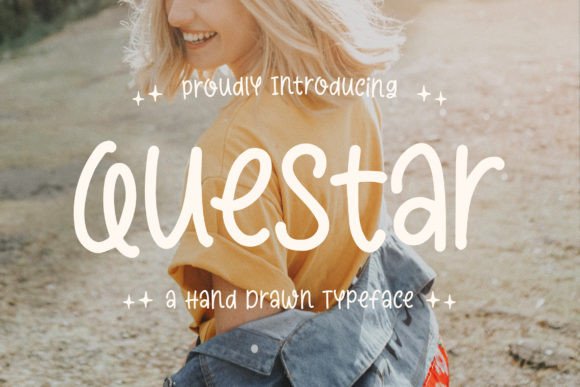
Journey into the realm of creativity with "Questar," a script font infused with artistic charm and a captivating handcrafted flair! Let your designs flourish with the warmth and expressiveness of "Questar," the perfect companion for visionary creatives seeking a touch of artistry in their work.
Unleash your artistic prowess and immerse yourself in a world of boundless imagination. Transform your branding into a masterpiece, captivating your audience with the unique charm of "Questar." Bring life to dreamy illustrations, adding a layer of emotional depth that resonates with viewers. Personalize stationery with an artistic twist, creating one-of-a-kind keepsakes that celebrate individuality. Elevate your social media presence with visually striking posts that stand out in the digital landscape.
With "Questar," the possibilities are endless. Embrace the artistic journey and watch your creative vision take flight. Indulge in the beauty of hand-drawn typography and let "Questar" ignite your imagination, transforming your designs into works of art.